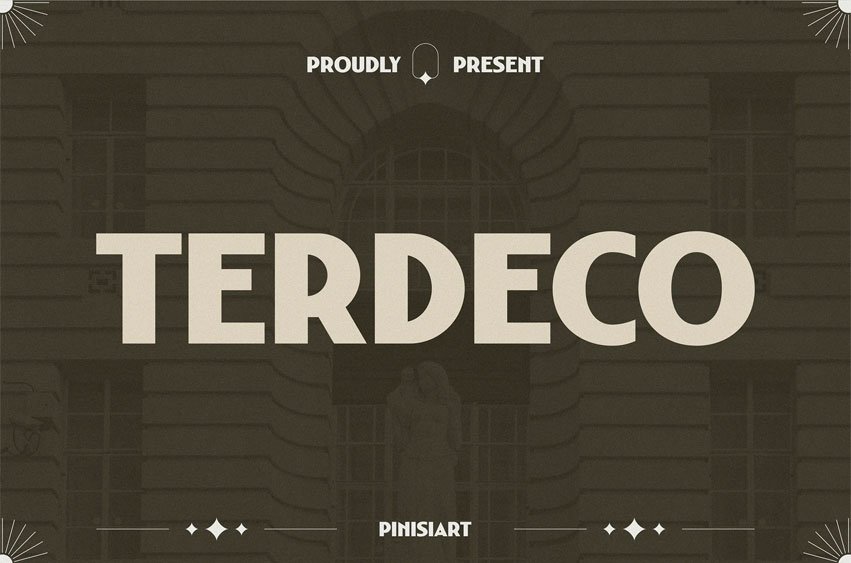
Terdeco Font Display Typeface blends timeless Art Deco geometry with modern typographic refinement. Its bold letterforms, clean terminals, and proportional rhythm bring both structure and elegance to every design. Inspired by architectural landmarks and vintage signage, this typeface radiates sophistication while staying versatile for today’s creative needs.
Its strong uppercase presence and balanced contrast make it ideal for branding, editorials, and headline compositions that demand authority and heritage charm. With a visual tone that feels both retro and contemporary, TERDECO bridges eras of design with effortless grace.
From luxury branding projects to minimalist packaging or high-impact posters, TERDECO is crafted for designers who appreciate architectural precision and cultural nostalgia. Whether you’re designing for fashion, interior exhibitions, restaurants, or magazine layouts, its refined geometry and classic aura elevate every message into a visual statement of credibility and taste.
It’s the perfect choice for brands seeking an elegant, structured, and memorable identity that echoes timeless design sensibilities.
Key Features :
- Architectural Geometry: Inspired by Art Deco forms and structured visual rhythm.
- Timeless Elegance: Perfect for creating sophisticated and heritage-inspired designs.
- Display-Ready: Ideal for large text, logos, headlines, posters, and editorial spreads.
- Versatile Style: Balances classic proportion with modern usability.